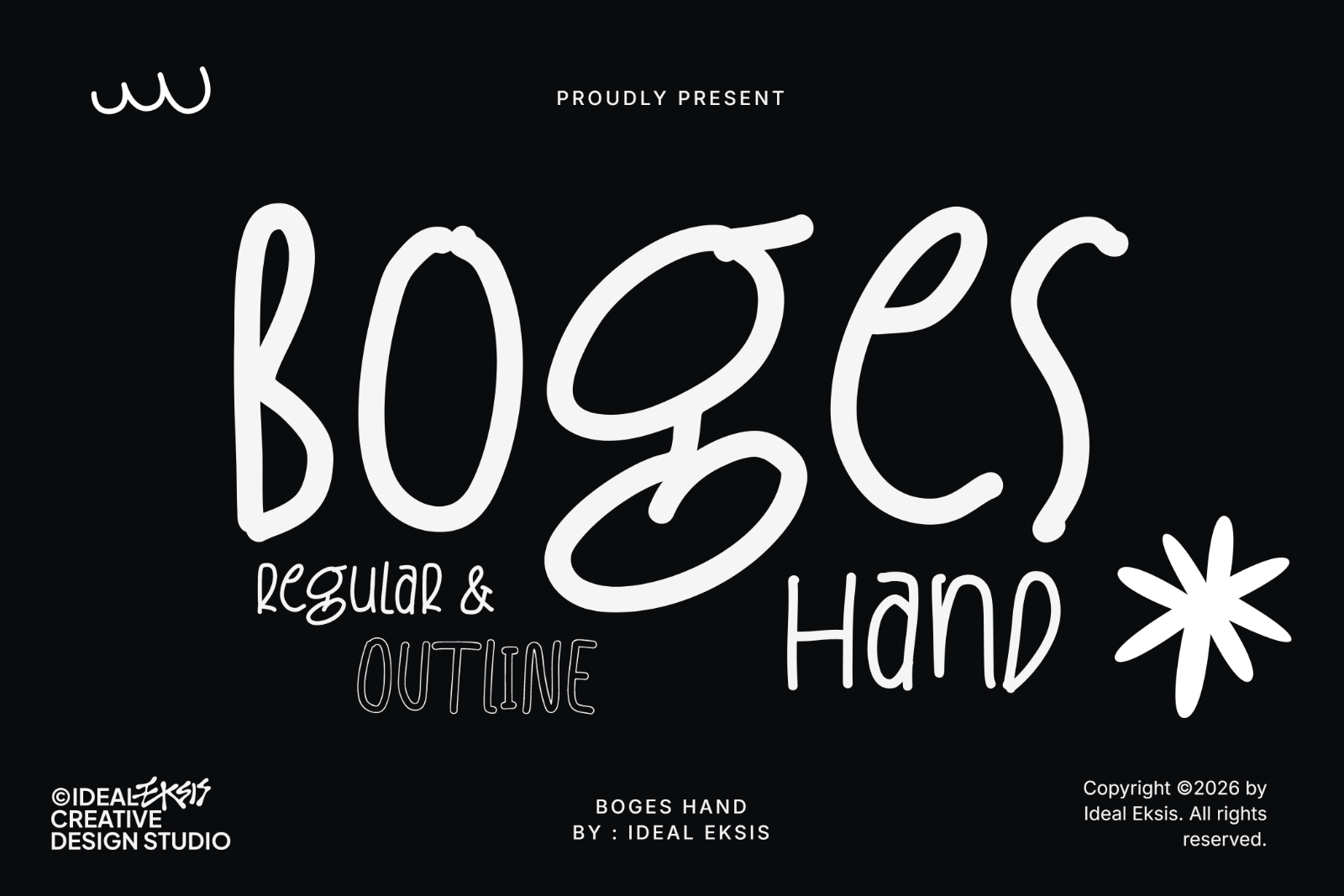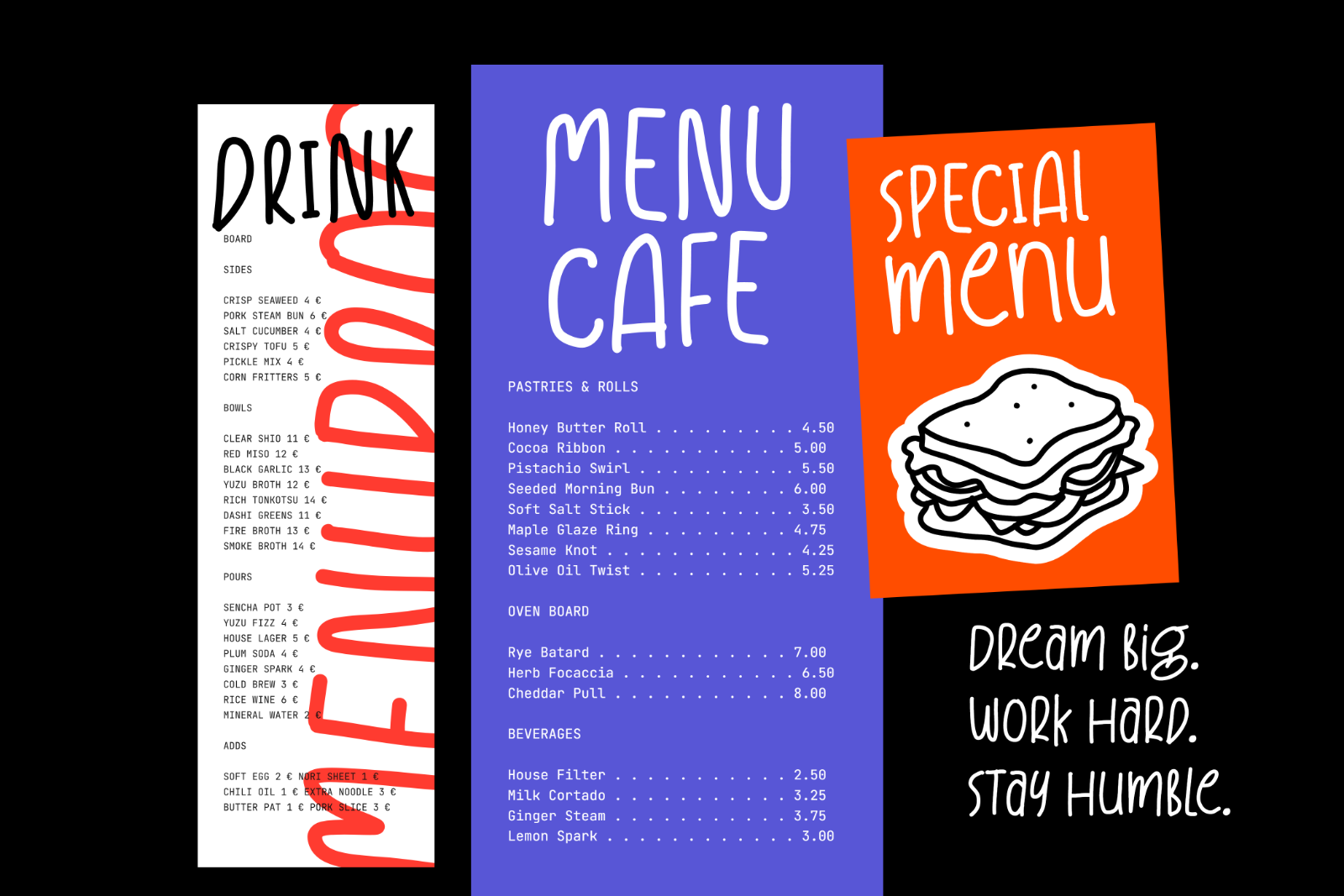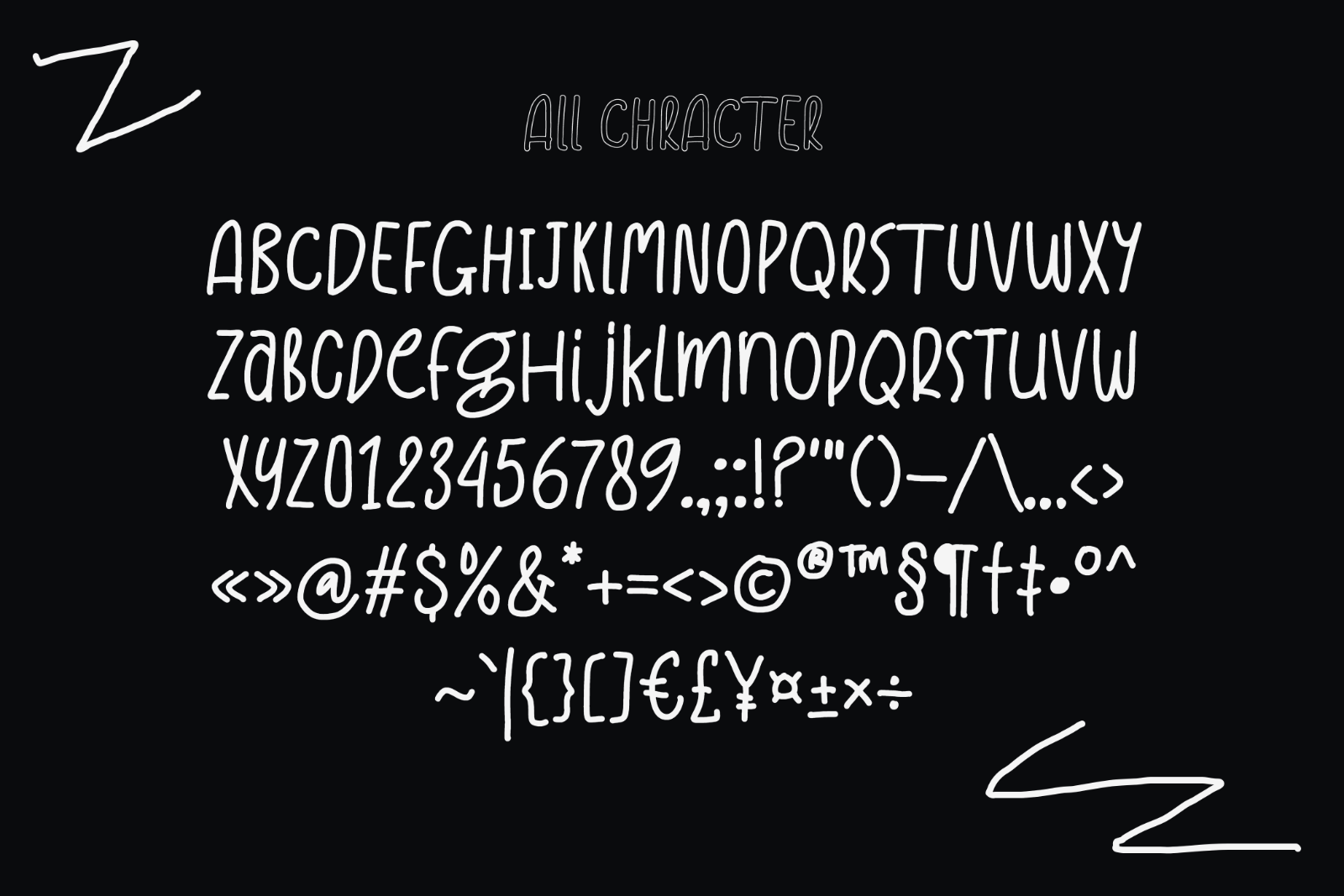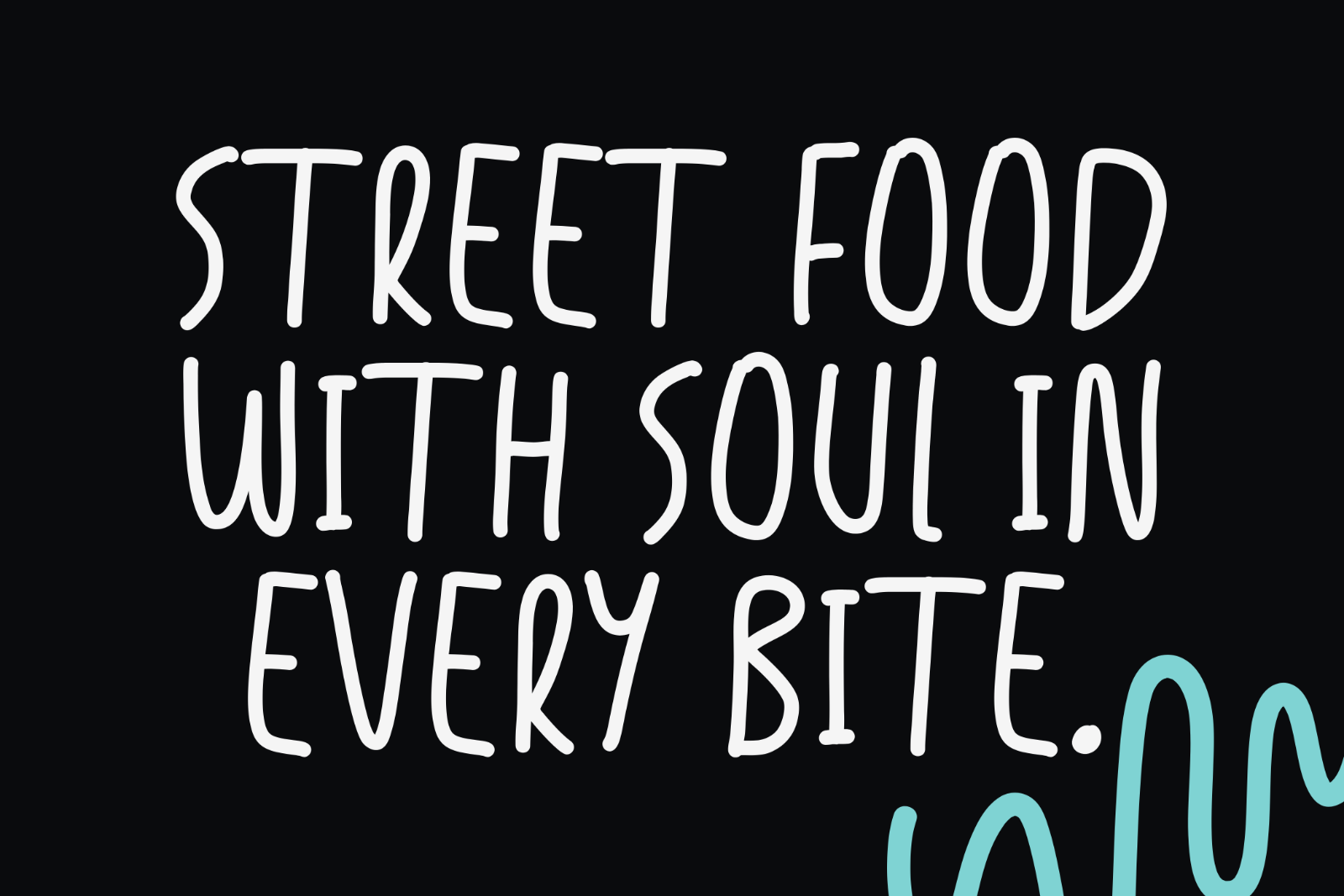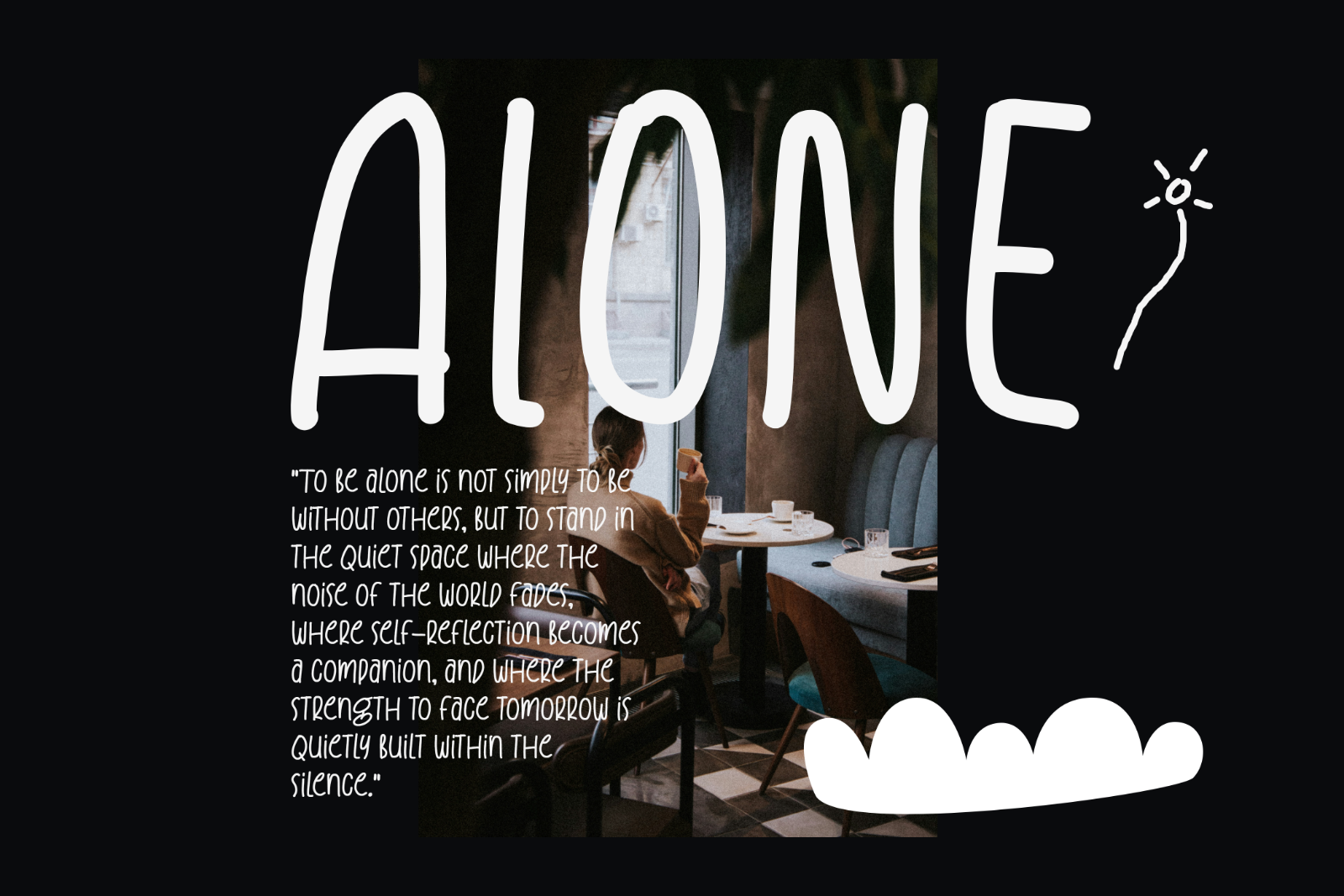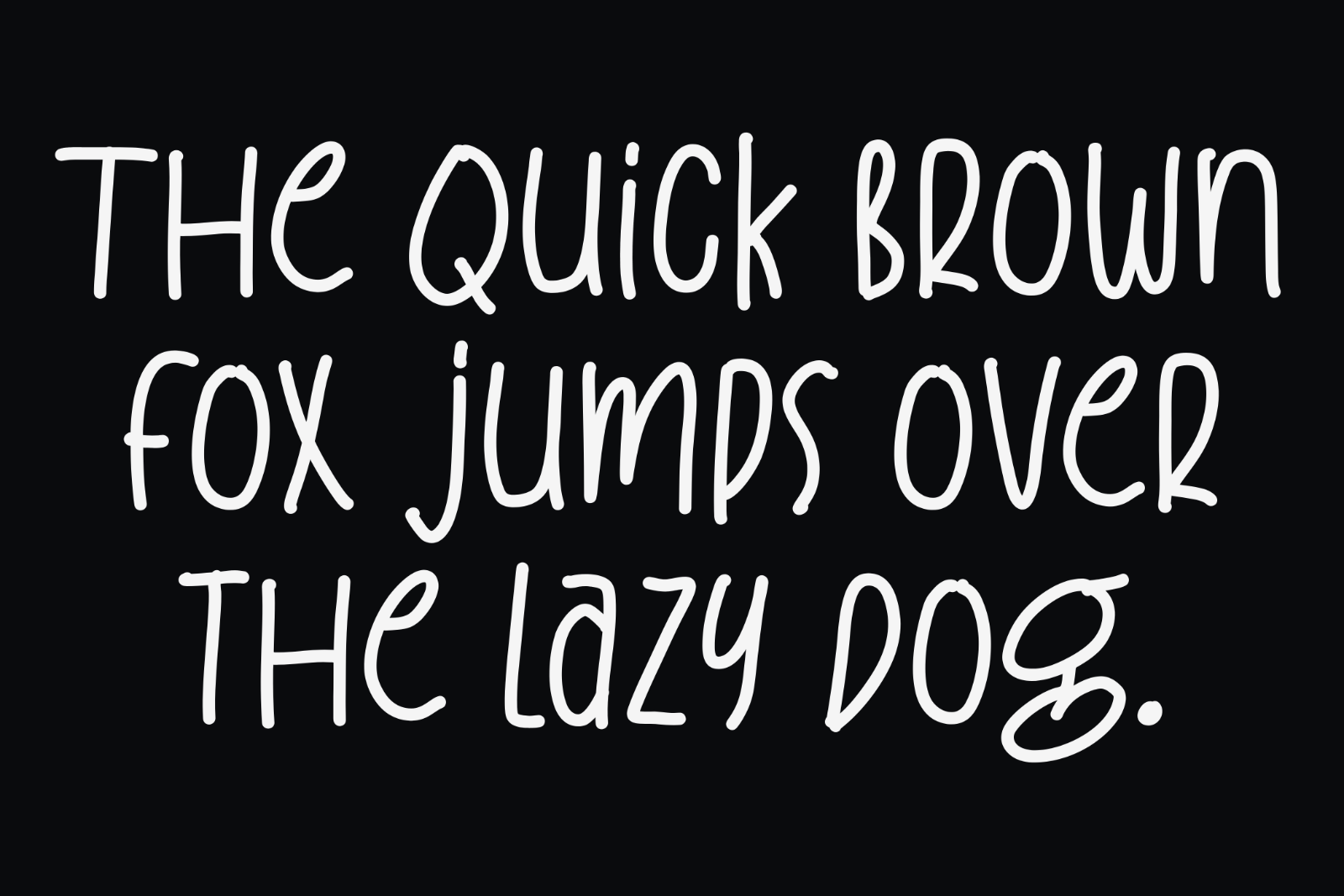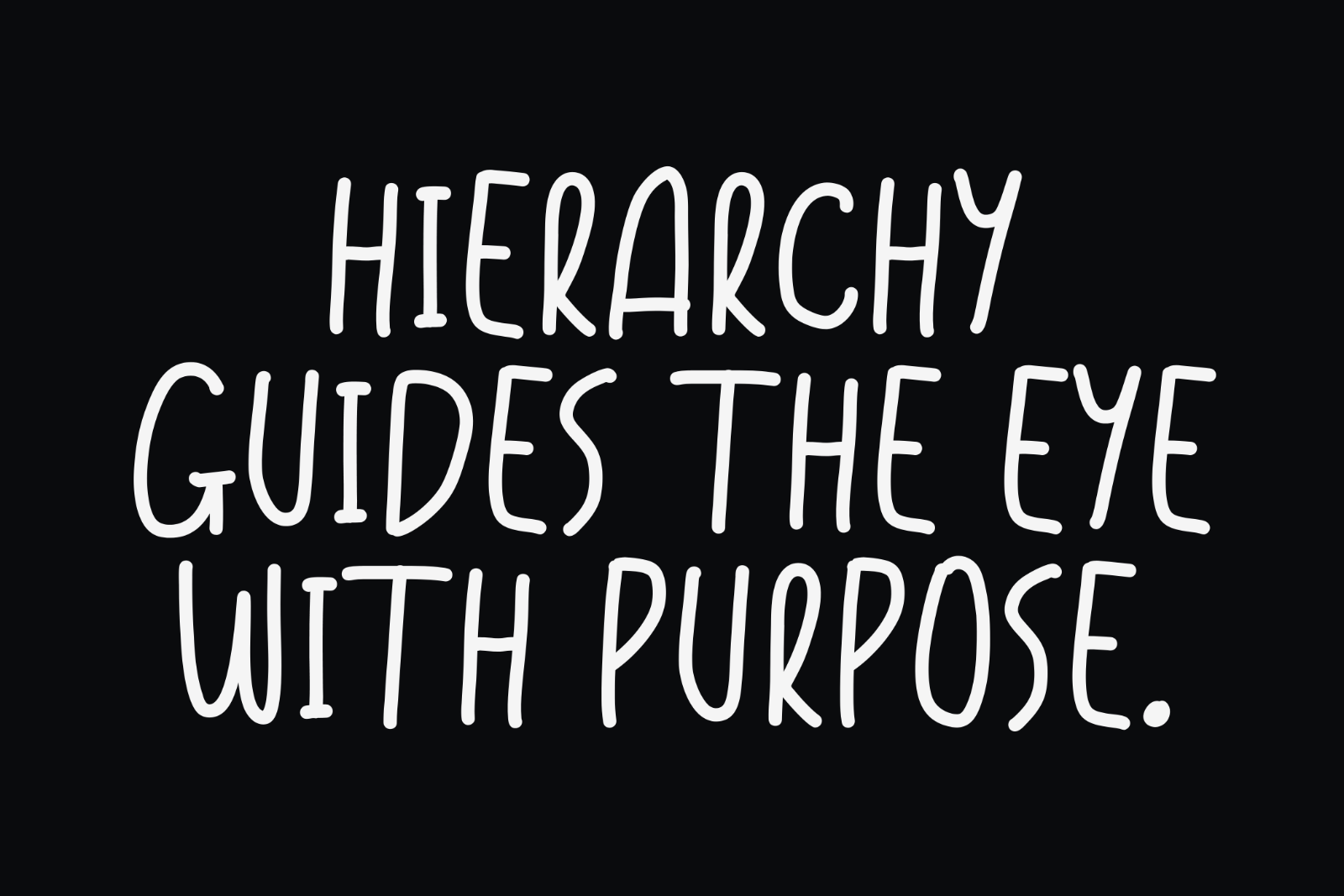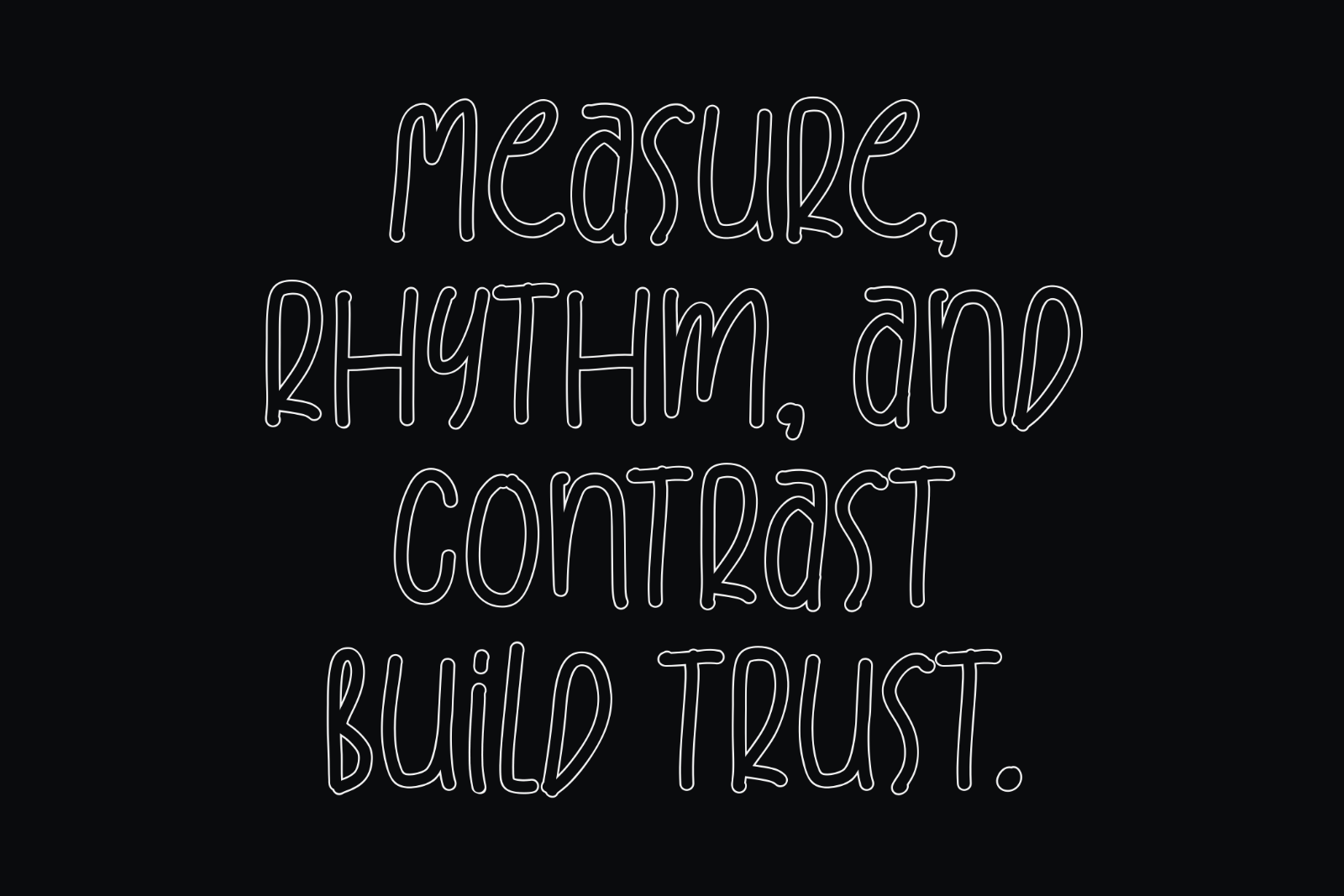
Boges Hand is a whimsical, tall handwritten typeface characterized by its organic, monolinear strokes and rounded terminals. The letterforms exhibit a casual, hand-drawn quality with elongated proportions and irregular baselines that give it a friendly, energetic personality. The font features both solid and outline styles, making it highly versatile for creative branding, children's book designs, packaging, social media graphics, and playful editorial layouts where a warm, human touch is desired.